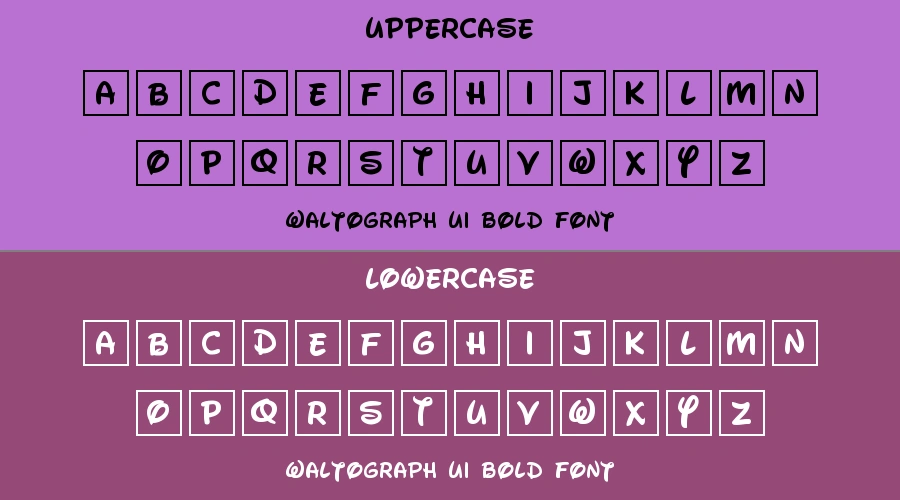
About Waltograph UI Bold Font
Waltograph UI Bold Font embodies typographic excellence through its masterful combination of flared stems and textual warmth. Created for poster art, this typeface delivers exceptional reliability and brand alignment across all applications. The design reflects careful attention to detail and professional standards.
Advanced capabilities include distinctive refined proportions and versatile logotype support, giving designers creative control. When used in captions, Waltograph UI Bold Font exhibits remarkable numerical alignment. The harmonious balance between cap height ratio and design philosophy sets this typeface apart.